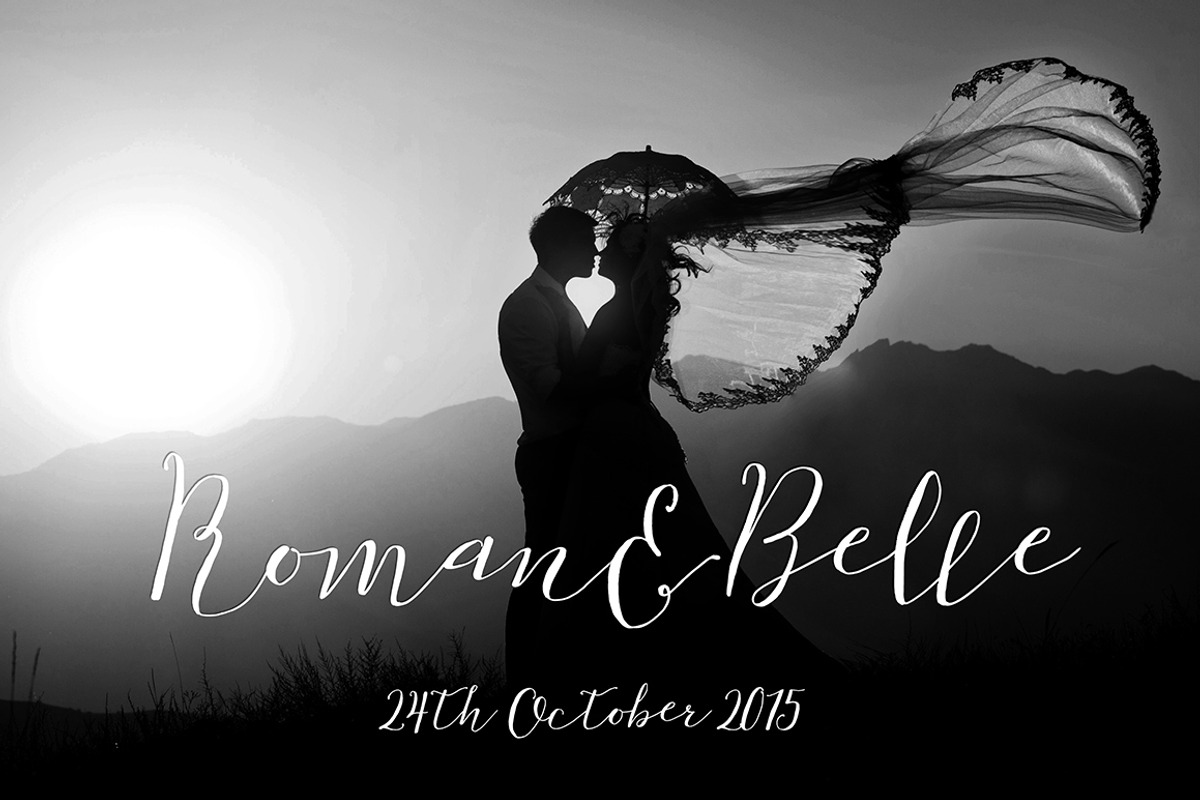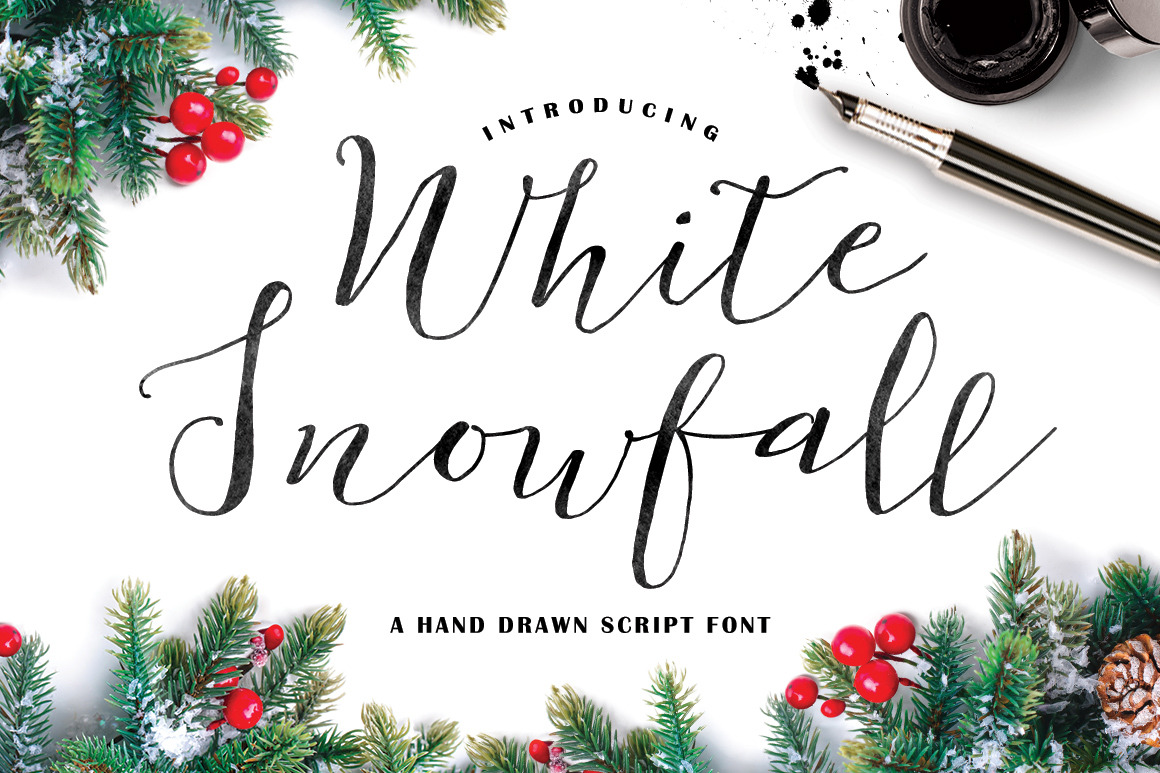
White Snowfall Script Font
Please welcome...White snowfall - a brand new hand drawn calligraphy script font, perfect for your Christmas cards, invitations, and much much more.
White Snowfall includes Uppercase, Lowercase, Discretionary Ligatures, and numbers and symbols.